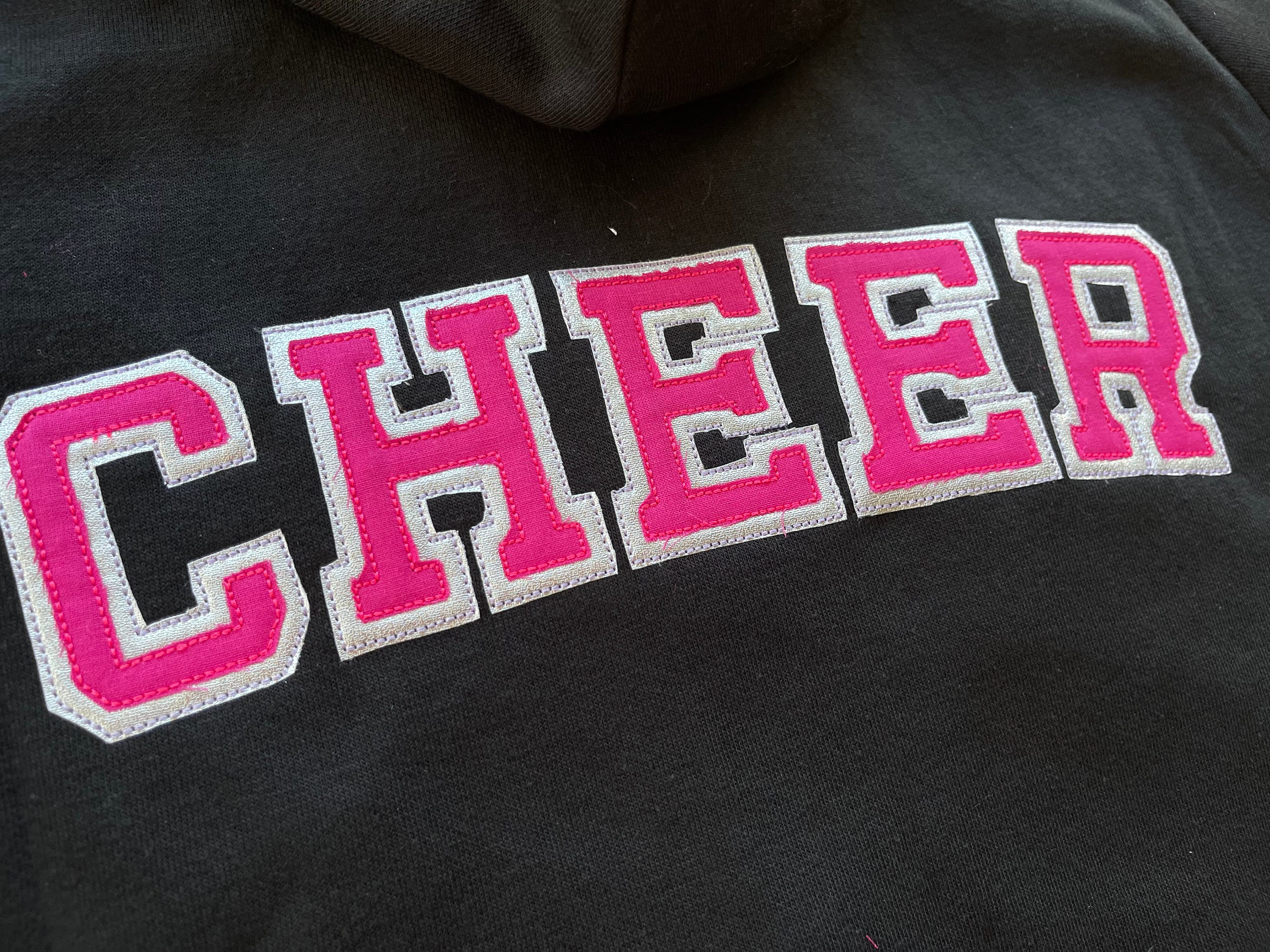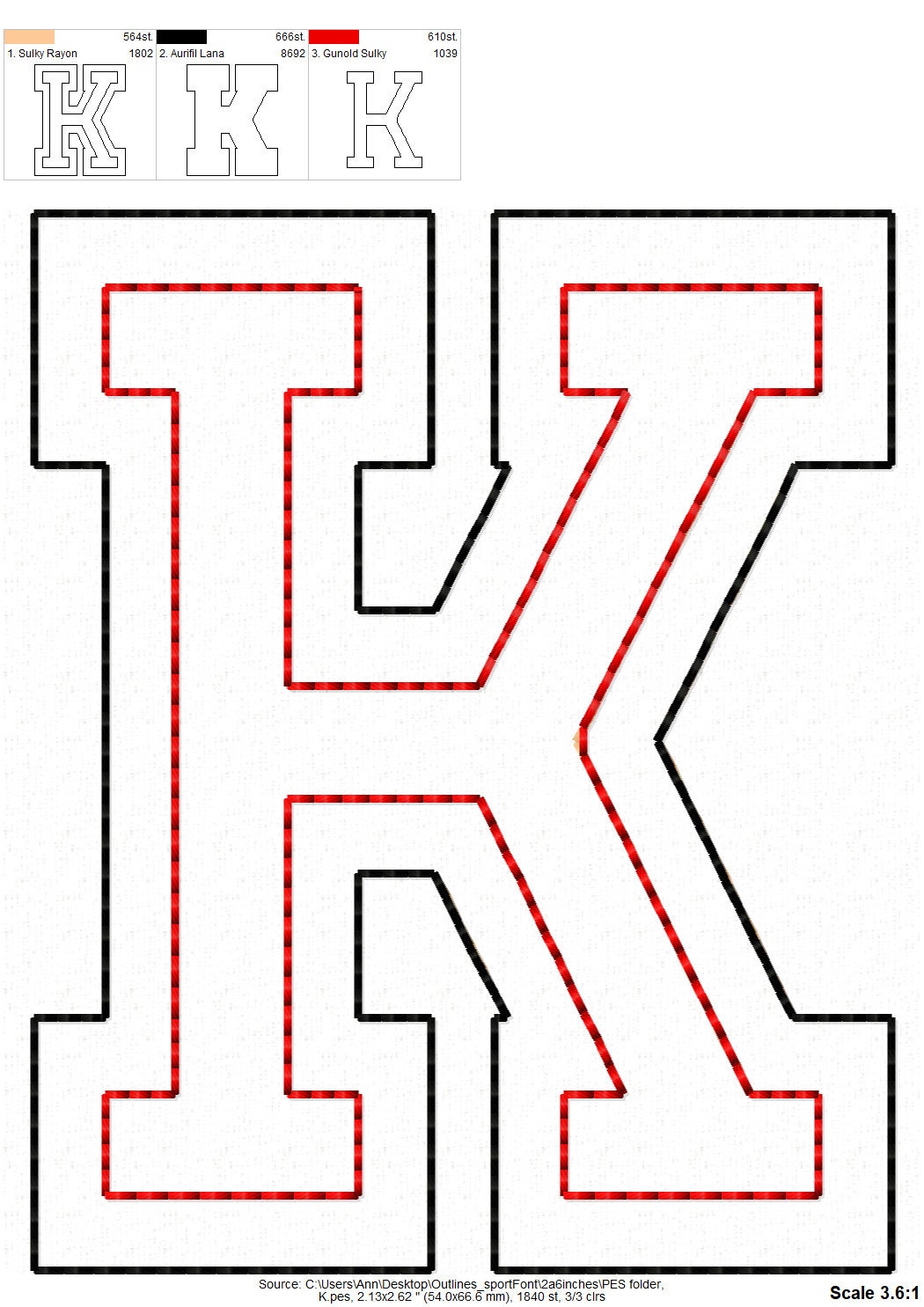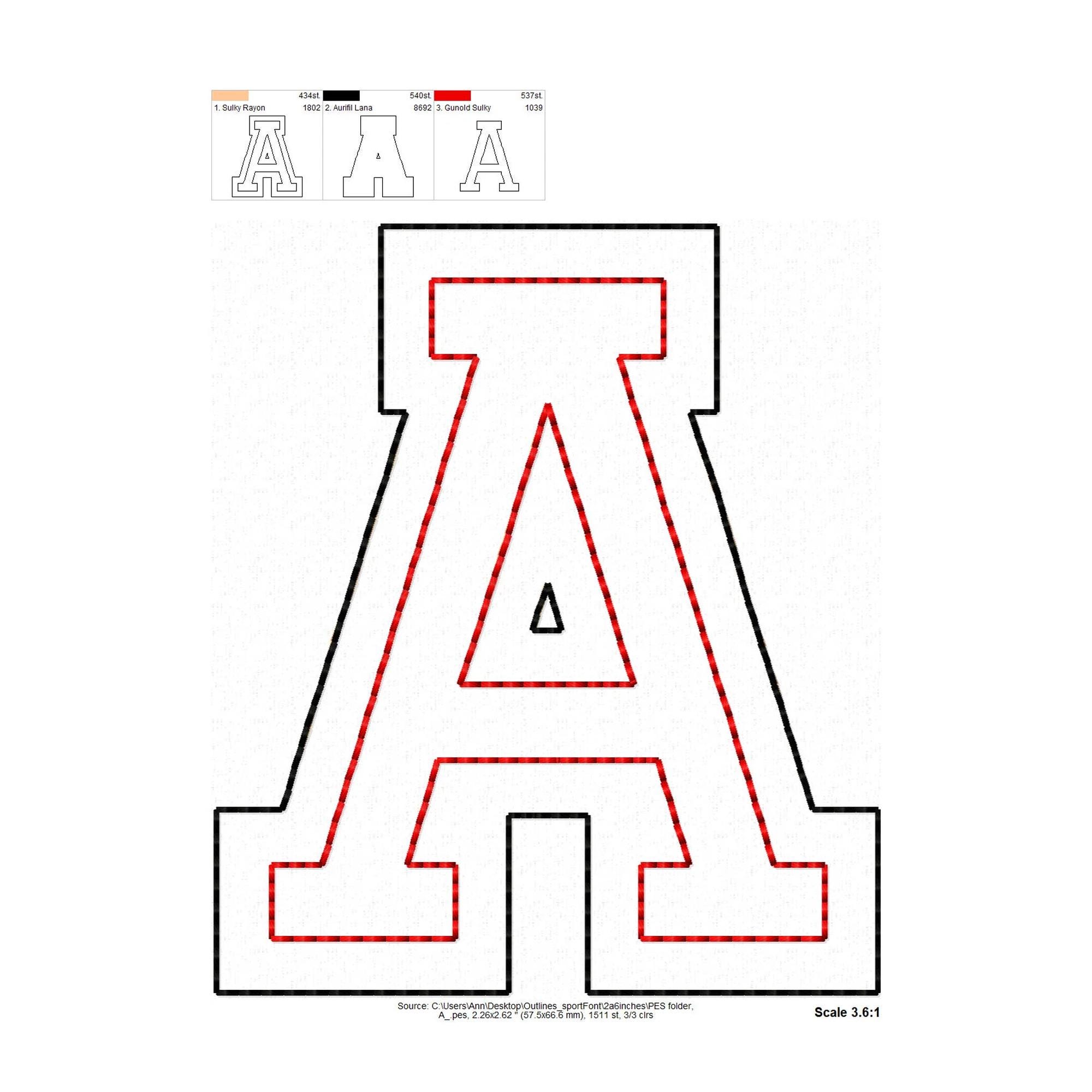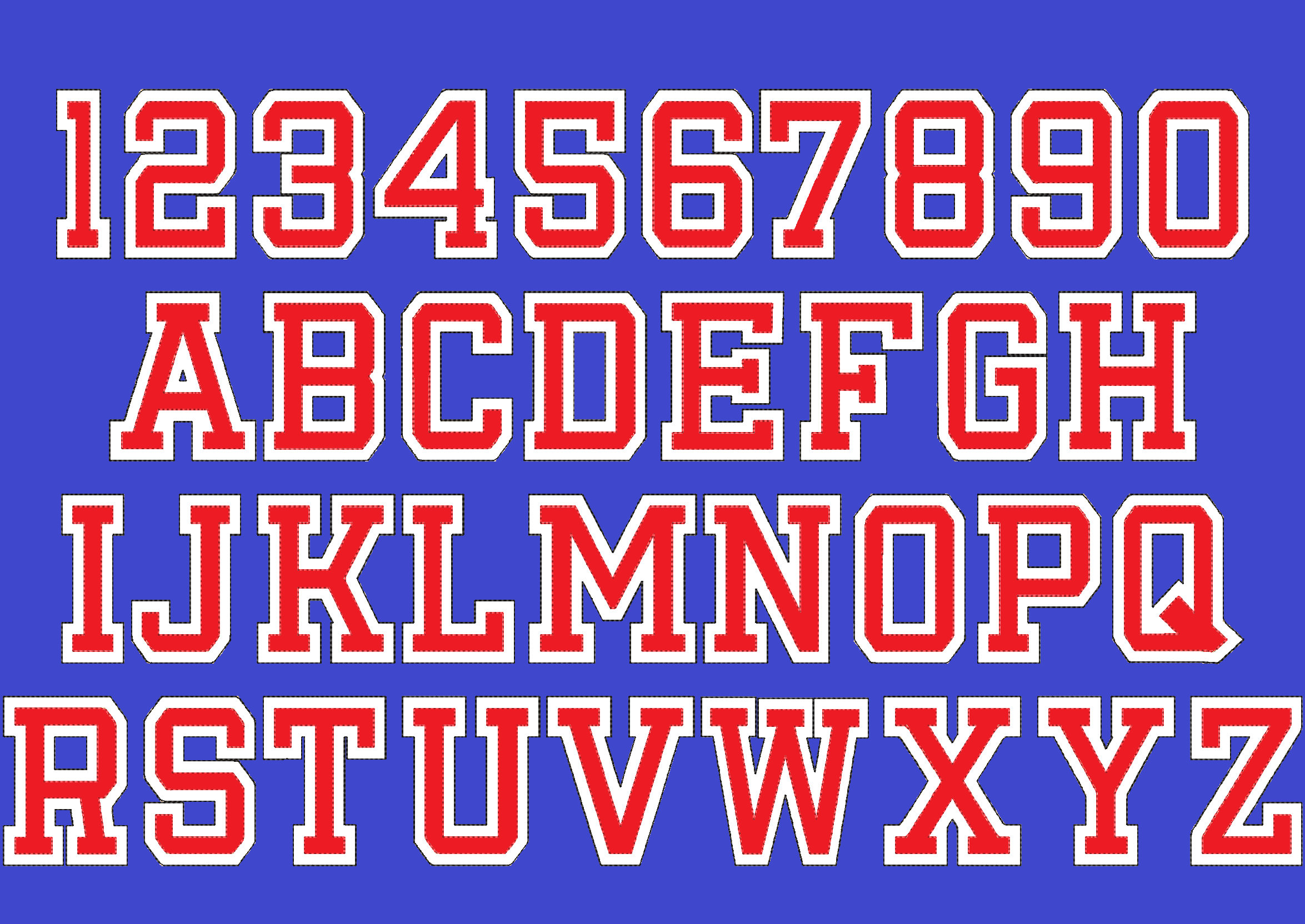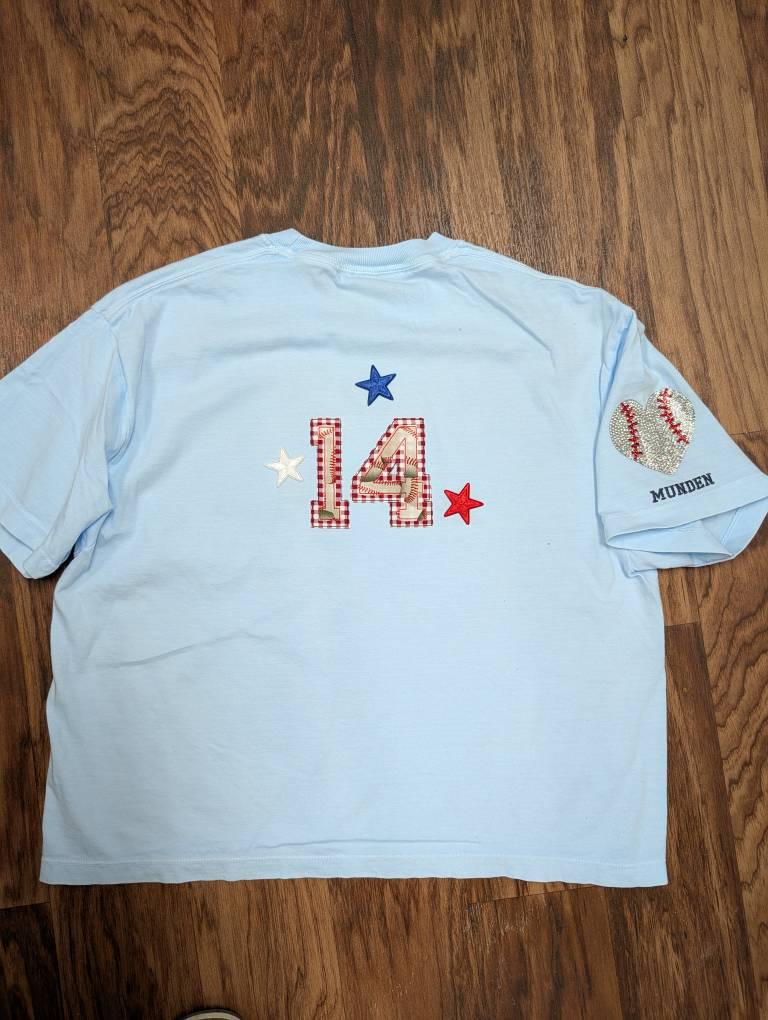
Double layer applique Font bean stitch outline Mini Sport Collegiate varsity Block Font machine embroidery designs open edge applique, BX included
Capital letters and numbers
This font is reproduced from a commercially free High School USA font that was created in 2013 by AbdulMakesFonts.